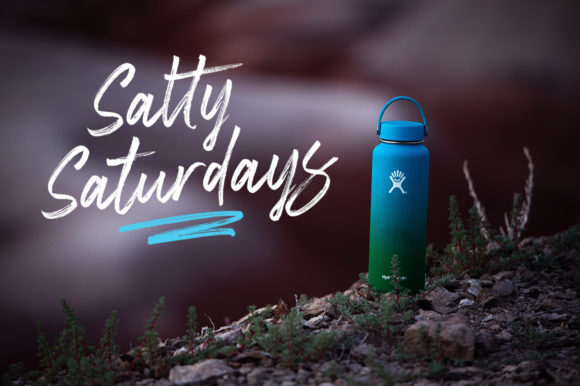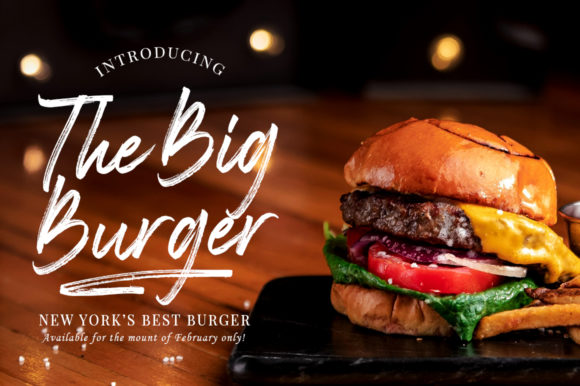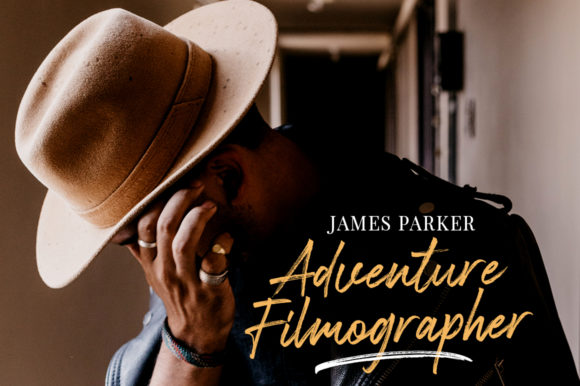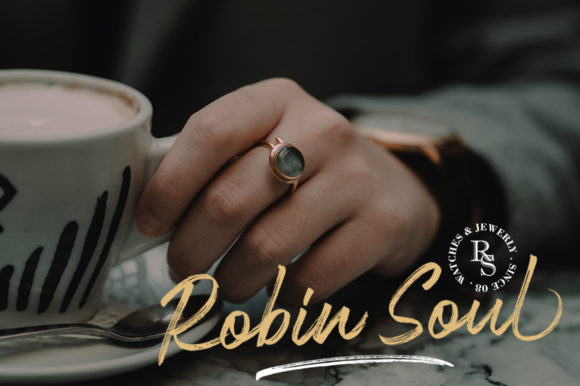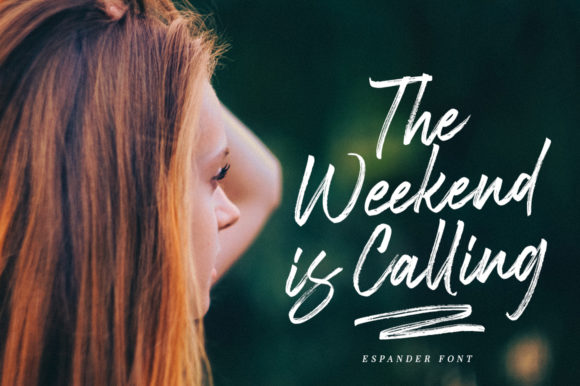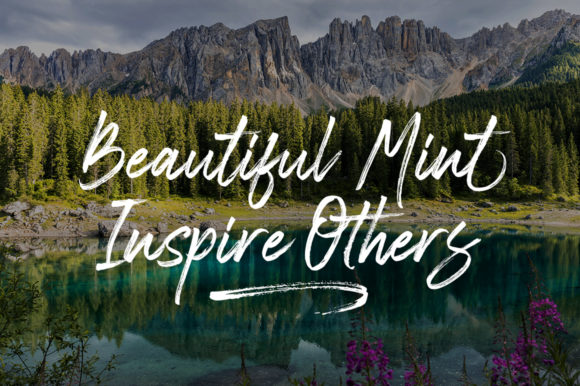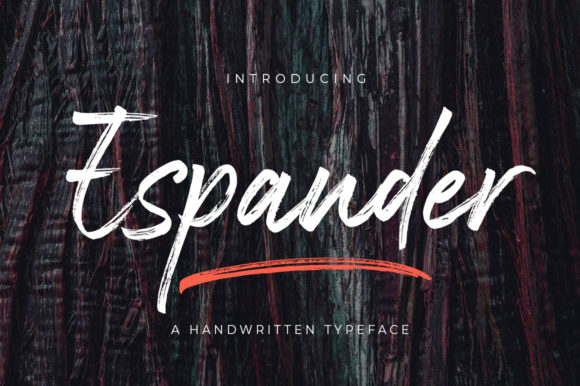
Introducing Espander Font: The Ultimate Playful Handwritten Font
Are you tired of using the same old fonts for your design projects? Look no further! Espander Font is here to shake things up with its unique and authentic lettering style. This fun and playful handwritten font is perfect for designers and crafters who want to add a bold feel to their work.
What Makes Espander Font So Special?
Espander Font is a one-of-a-kind font that is sure to capture the attention of your audience. Its bold and playful feel makes it perfect for a variety of design projects, from branding and advertising to packaging and signage. The font’s unique lettering style is both authentic and eye-catching, making it a great choice for designers who want to stand out from the crowd.
Key Features of Espander Font
• Handwritten style: Espander Font has a beautiful, handwritten style that gives it a personal and authentic feel.
• Bold feel: The font has a bold feel that makes it perfect for headlines, titles, and other design elements that need to stand out.
• Unique lettering: Espander Font has a unique lettering style that is sure to capture the attention of your audience.
• Playful vibe: The font has a playful vibe that makes it perfect for designs that need to be fun and engaging.
Uses for Espander Font
Espander Font is a versatile font that can be used for a variety of design projects, including:
• Branding and advertising: Use Espander Font to create eye-catching logos, ads, and marketing materials that will grab the attention of your target audience.
• Packaging design: Add a playful touch to your product packaging with Espander Font.
• Signage: Use Espander Font to create eye-catching signs and banners that will stand out in a crowd.
• Digital design: Espander Font is perfect for digital designs, including social media graphics, blog posts, and website headers.
Why Designers and Crafters Love Espander Font
Designers and crafters love Espander Font for its unique and authentic lettering style. The font is easy to read and has a bold feel that makes it perfect for designs that need to stand out. Additionally, the font’s playful vibe makes it perfect for designs that need to be fun and engaging.
Tips for Using Espander Font
• Use it sparingly: Espander Font is a bold font, so use it sparingly to avoid overwhelming your design.
• Pair it with other fonts: Pair Espander Font with other fonts to create a unique and visually appealing design.
• Experiment with colors: Experiment with different colors to find the perfect combination that complements your design.
In conclusion, Espander Font is a fun and playful handwritten font with a bold feel that is perfect for designers and crafters who want to add a unique touch to their designs. Its authentic lettering style and playful vibe make it a great choice for a variety of design projects. So why wait? Fall in love with Espander Font and take your designs to the next level!